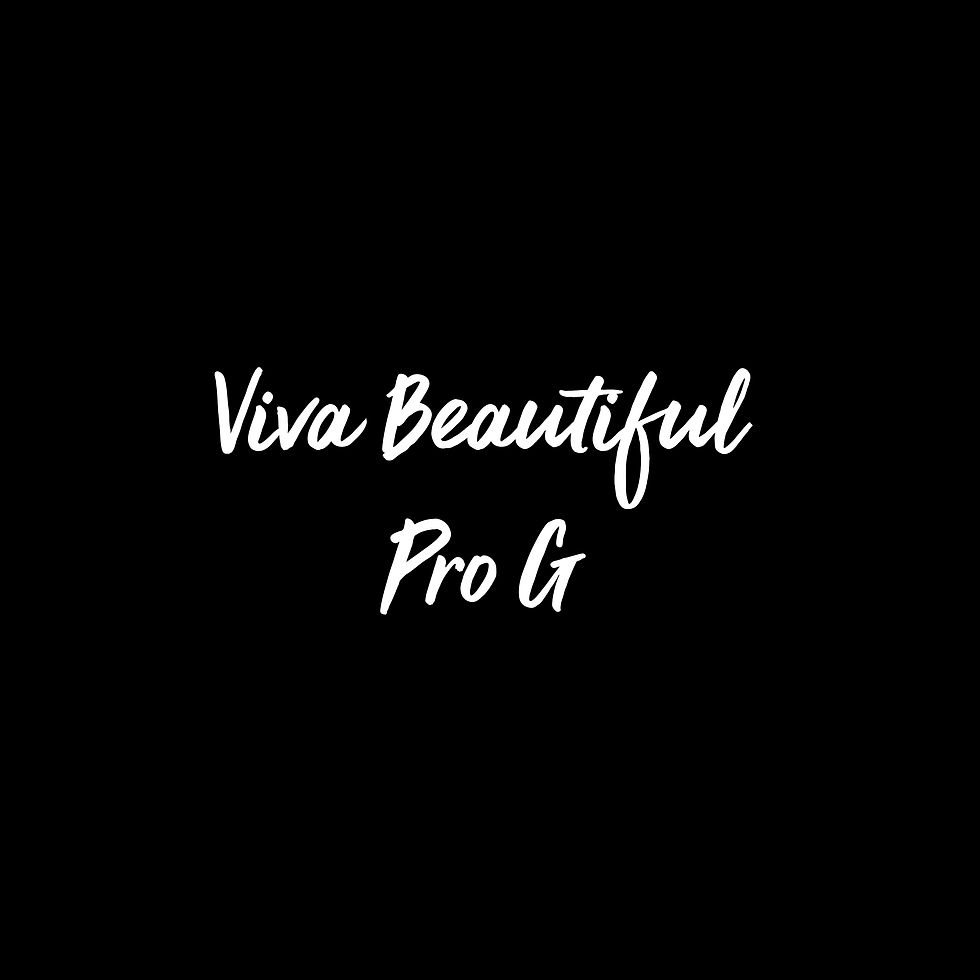
VIVA BEAUTIFUL PRO G FONT is a lovely hand-painted brush script. Viva Beautiful Pro G font includes OpenType alternates and common ligatures. Try the alternates and ligatures to give your designs a realistic hand-painted look. Viva Beautiful Pro G font includes OpenType ligatures.
Viva Beautiful Pro G Font